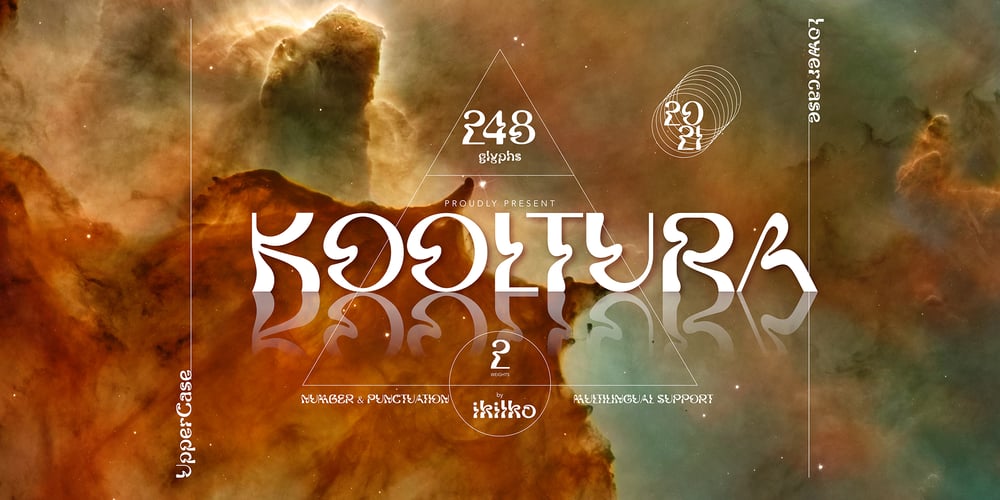
Kooltura
Kooltura font
Kooltura Font Family was designed by Andhika Pradana and published by IKIIKOWRK. Kooltura contains 1 styles and family package options. Introducing Kooltura Psychadelic Type, created by ikiiko.Is a trippy typeface with unique stylistic in 70s era. This typeface is perfect for an poster, cover album, cult product, hipster stuff, fashion, quotes, or simply as a stylish text overlay to any background image.What’s included? Lowercase & Uppercase Number & Punctuation Multilingual Support Format File : TTF & OTF Works on PC & Mac Get also a good offer & FREEBIE at our site : www.ikiiko.comEnjoy our font and if you have any questions, you can contact us by email : ikiikowrk@gmail.com